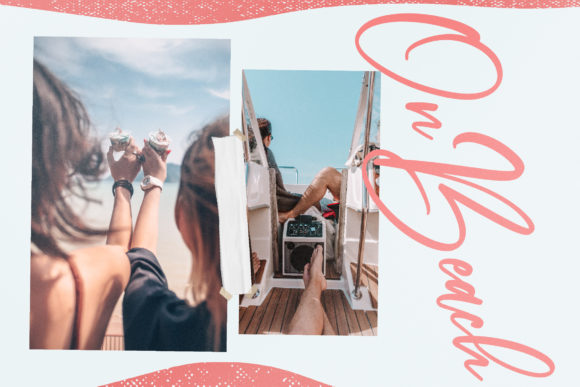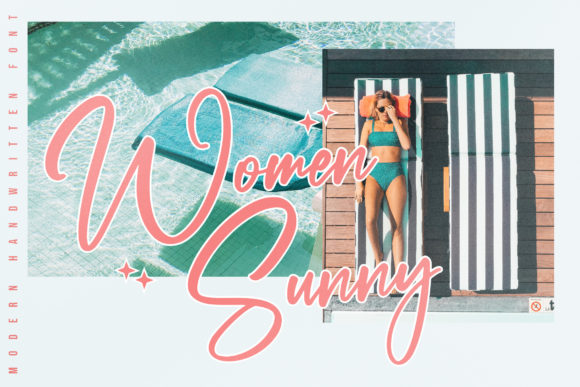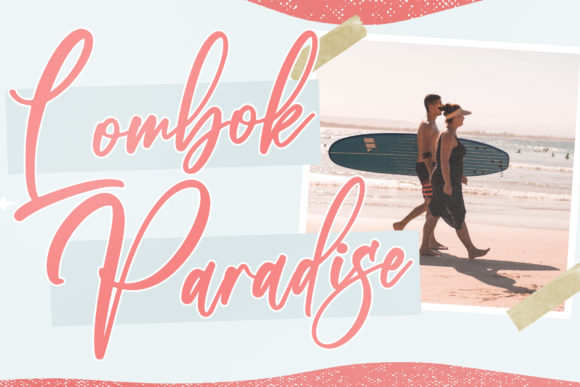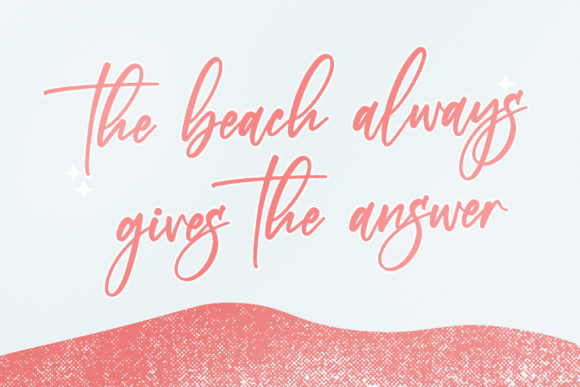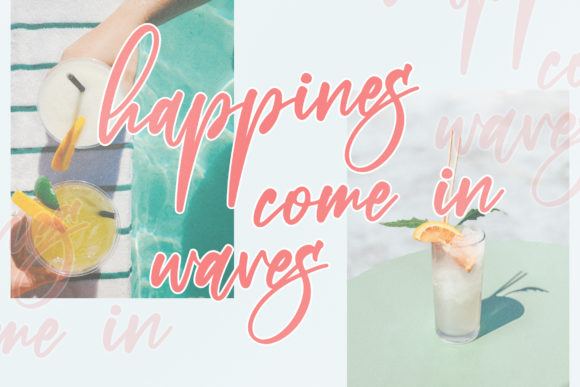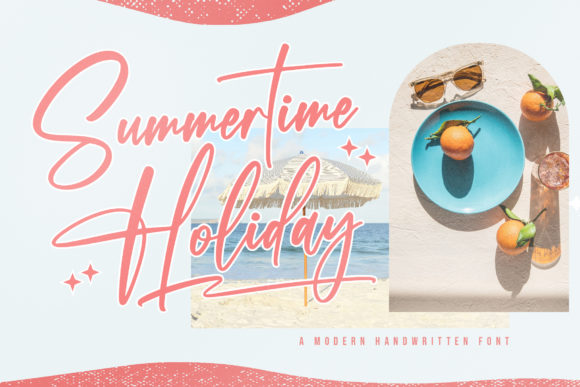
Discover the Ultimate Coastal Vibe with Beach Paradise Font
Who hasn’t dreamed of strolling along a sun-kissed beach, feeling the warm sand between their toes and the gentle ocean breeze in their hair? For designers, capturing that effortless, laid-back feeling is the perfect way to transport their audience to a world of tranquility and relaxation. That’s exactly what the Beach Paradise Font does – it brings the essence of a tropical paradise to your designs.
With its soft, brushed, and flexible handwritten style, Beach Paradise Font is the perfect choice for business cards, wedding invitations, banner ads, and other creative projects. What sets it apart is its PUA encoding, making it easy to access all the glyphs and swashes you need to add that extra touch of personality to your work. Whether you’re a seasoned designer or just starting out, Beach Paradise Font is a valuable addition to your toolkit.
Beach Paradise Font Key Features
- Font Family: Beach Paradise Font
- Font Size: 1000 glyphs, including uppercase, lowercase, numbers, punctuation, and special characters
- Unique Characteristics: Beach Paradise Font features a unique, hand-drawn design with a relaxed, beachy feel, making it perfect for summer-themed projects, travel, and leisure industries
Beach Paradise Font Review
Overall, I was excited to dive into the Beach Paradise Font, but my experience was a mix of excitement and disappointment. ✨
The font has a unique and tropical vibe that screams ‘summer vibes’ – perfect for creating a laid-back atmosphere in your designs. The font family includes a wide range of weights and styles, which is great for flexibility. Additionally, the font supports a variety of languages, making it a great option for global designs.
However, I encountered some limitations that made me think twice about using the font in my projects. ⚠️
- Some characters appear slightly distorted or inconsistent, which may affect the overall design quality.
- The font lacks support for certain special characters and symbols, which can be frustrating when working with technical or scientific content.
- While the font family is extensive, the styles can sometimes feel inconsistent, making it challenging to achieve a cohesive look.
Overall, the Beach Paradise Font has its strengths and weaknesses. While it’s a great choice for casual, creative projects, I wouldn’t recommend it for more formal or technical designs.
The Beach Paradise Font is perfect for:
Summer-themed designs, such as beach party invitations and summer camp brochures.
Travel and tourism designs, such as travel guides and hotel brochures.
Outdoor and nature-themed designs, such as park maps and outdoor gear catalogs.